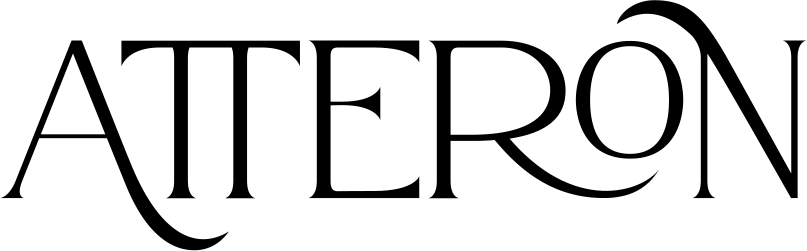
Atteron Font
Atteron font can transform your design from a simple theme to an incredibly stylish design, with the swash lines you see in the characters. Downloading this luxury font is worth it to complete your invitation cards, even though it does not support numbers and lowercase letters.
The bold end of the characters is a unique feature that you will not encounter in any epic fantasy font, and you can safely use it for advertising luxury brands.
Atteron is a elegant serif font. Made for any professional project branding. It is the best for logos, branding and quotes. Every letter has a unique and beautiful touch.-Link to purchase commercial license with an option: https://din-studio.com/product/atteron-elegant-serif-font/